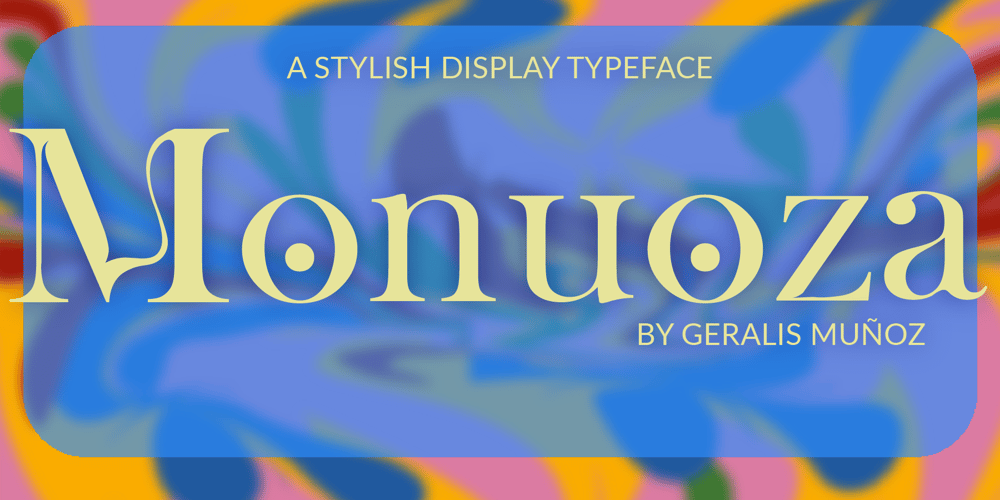
Monuoza Font Family was designed by Geralis Muñoz and published by Geralis Muñoz. Monuoza contains 3 styles and family package options. Mounuoza is mainly for display as a clean and balanced typeface, but it is also flexible and can be used for text due to its readability. The duality of straight and curved lines makes this font adequate for an elevated elegant feel. The inspiration behind designing this was the question: “How can I make a serif typography look like Venus incarnated?” Art Nouveau played a big role in choosing the direction of the design; hence it features curves and fluidity, but also small details that bring a touch of velvet mystery.